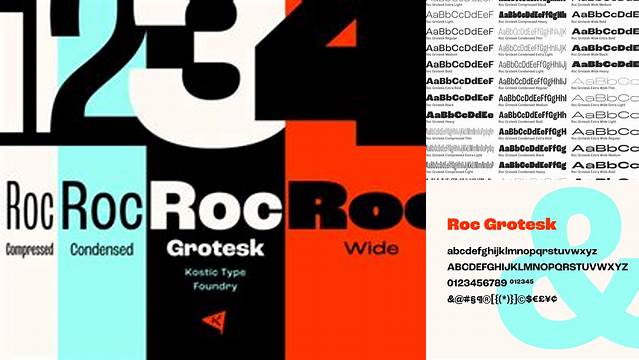
Hey design enthusiasts! Ever stumbled upon a font that just screams modern, industrial, and undeniably cool? That’s likely the vibe of ROC Grotesk Pressed. This font is a serious game-changer for anyone looking to inject a dose of contemporary grit into their projects. Whether you're crafting a brand identity, designing a poster, or just sprucing up your social media graphics, ROC Grotesk Pressed offers a unique aesthetic that’s hard to ignore.
Understanding the ROC Grotesk Pressed Font Family
The ROC Grotesk Pressed font family is a really fascinating collection, guys. It’s not just a single typeface; it’s a carefully curated set of weights and styles designed to work harmoniously together, offering a versatile toolkit for a wide range of design needs. At its core, ROC Grotesk Pressed is a sans-serif typeface, meaning it lacks those little decorative strokes (serifs) at the ends of letters. This gives it a clean, modern, and often minimalist appearance. What sets it apart, though, is its condensed nature. Think of it as a stretched-out, slender version of a standard grotesque font. This condensed form gives it a distinctive, commanding presence, making it perfect for headlines, titles, and any text where you want to make a bold statement without occupying too much horizontal space. The “Pressed” in its name hints at this characteristic, suggesting a font that’s been squeezed or compressed, giving it a unique visual weight and impact. The family typically includes various weights, from a light and airy feel to a bold and impactful presence, allowing designers to create sophisticated typographic hierarchies. Each weight has been meticulously crafted to maintain legibility even in its condensed form, which is a real feat. This means you can use the lighter weights for subheadings or body text if the context allows, and the bolder weights for powerful impact statements. The overall design philosophy behind ROC Grotesk Pressed is one of modern efficiency and visual strength, embodying a sort of industrial elegance that’s incredibly appealing in today’s design landscape. Its clean lines and geometric influences make it feel both timeless and cutting-edge, a tricky balance that this font family absolutely nails. So, when you’re looking at ROC Grotesk Pressed, you’re not just getting a font; you’re getting a carefully considered typographic system ready to elevate your designs.
Exploring the Design Characteristics of ROC Grotesk Pressed
Let's dive a bit deeper into what makes ROC Grotesk Pressed such a standout typeface, shall we? The condensed structure is definitely its most defining feature. This isn't just a subtle narrowing; it's a deliberate design choice that imbues the font with a sense of urgency, efficiency, and a strong verticality. Think of those iconic movie posters or album covers that use tall, impactful typography – that’s the kind of energy ROC Grotesk Pressed brings to the table. But it’s not just about being narrow; it’s about how that narrowness is executed. The designers have managed to maintain excellent legibility despite the condensed form. This means the letterforms are clear and distinct, preventing that frustrating blurriness that can plague some narrow fonts, especially at smaller sizes. You’ll notice a consistent stroke weight, which contributes to its visual stability and readability. Another key characteristic is its grotesque nature. Grotesque sans-serifs are known for their straightforward, unadorned appearance, often with a slightly geometric or even utilitarian feel. ROC Grotesk Pressed takes this foundation and refines it with a contemporary sensibility. The terminals (the ends of strokes) are typically clean and open, avoiding fussy details. The curves are generally smooth, but there's a subtle sharpness that adds to its modern edge. Pay attention to the x-height – the height of lowercase letters like 'x'. A generous x-height often contributes to better readability, and ROC Grotesk Pressed often strikes a good balance here, ensuring that even though it’s condensed, the text doesn't feel cramped or difficult to read. The apertures (the openings in letters like 'c', 'e', 's') are also well-defined, further enhancing clarity. It’s this thoughtful attention to detail, combined with its bold condensed silhouette, that makes ROC Grotesk Pressed so versatile and visually arresting. It’s a font that commands attention without shouting, offering a sophisticated yet powerful statement for any design project.
Why ROC Grotesk Pressed is a Designer's Favorite
So, why do so many designers gravitate towards ROC Grotesk Pressed? It really boils down to its unique blend of style and functionality, guys. In the fast-paced world of design, having a typeface that can do a lot of heavy lifting is crucial, and this font definitely fits the bill. First off, its condensed structure is a massive advantage. Need to fit a lot of text into a limited space, like on a compact banner or a mobile app interface? ROC Grotesk Pressed is your best friend. It allows for dense information without looking cluttered, maintaining a strong visual impact. This makes it incredibly useful for editorial design, packaging, and branding where space efficiency is key. Secondly, its modern and industrial aesthetic is highly sought after. It evokes a sense of precision, strength, and urban sophistication. This makes it perfect for brands that want to project an image of being cutting-edge, reliable, or having a robust, no-nonsense approach. Think tech companies, streetwear brands, architectural firms, or even high-end restaurants aiming for a chic, contemporary vibe. Furthermore, the versatility across weights is a huge plus. Having a range from light to bold means you can create a cohesive typographic system within a single project. You can use a bold weight for a main headline, a medium weight for subheadings, and perhaps even a lighter weight for captions, all while maintaining that distinctive ROC Grotesk Pressed character. This consistency is gold for brand recognition and visual harmony. It’s a font that doesn’t just look good; it performs well, offering excellent legibility and adaptability across various media, from print to digital screens. It’s the kind of font that makes a project feel instantly more professional and polished, which is exactly what every designer strives for. Plus, its distinctive look means your work will stand out from the crowd.
The Versatility of ROC Grotesk Pressed in Branding
When we talk about branding, guys, consistency and impact are everything. That’s precisely where ROC Grotesk Pressed shines, making it a go-to choice for many companies looking to establish a strong visual identity. Its condensed sans-serif nature lends itself incredibly well to the demands of modern branding. Firstly, the condensed format is brilliant for logo design. Many logos need to be legible at very small sizes (think app icons or favicons) and also impactful when scaled up for signage or billboards. ROC Grotesk Pressed’s verticality allows it to be memorable and distinctive even when horizontally constrained. It can create a compact, powerful logotype that feels contemporary and sophisticated. Secondly, in brand collateral like business cards, letterheads, and brochures, the font’s efficiency means you can convey information clearly without making the design feel crowded. Imagine a sleek business card – ROC Grotesk Pressed can deliver a strong company name or tagline in a minimal amount of space, maintaining an elegant and uncluttered look. The various weights available within the family allow for a complete typographic hierarchy for brand communications. You can use a bold weight for the main brand name or headline, a regular weight for body copy in marketing materials, and perhaps a lighter weight for secondary information or footnotes. This creates a professional and unified brand voice across all touchpoints. The modern, industrial aesthetic also appeals to a wide range of industries that want to project qualities like innovation, reliability, and strength. Whether it’s a tech startup, a craft brewery, or an automotive brand, ROC Grotesk Pressed can help convey a sense of forward-thinking dynamism and grounded robustness. Its distinctive character ensures that the brand doesn't just blend in; it makes a statement. It’s a font that can easily adapt to different brand personalities, from minimalist chic to bold industrial, proving its immense value in the competitive world of brand building. The ability to maintain legibility across different applications, from web headers to print advertisements, further cements its status as a branding powerhouse.
ROC Grotesk Pressed for Eye-Catching Headlines
Headlines, guys, are often the first impression your content makes. They need to grab attention, convey key information instantly, and set the tone for what’s to come. This is where ROC Grotesk Pressed absolutely KILLS IT. Its condensed, bold form is inherently attention-grabbing. When you use a bold weight of ROC Grotesk Pressed for a headline, it possesses a strong vertical presence that naturally draws the eye. It cuts through the visual noise of a page or screen, demanding to be read. This makes it exceptionally effective for everything from magazine covers and newspaper front pages to website banners and social media posts. The unique character of the condensed sans-serif style also gives headlines a sense of sophistication and modernity. It feels intentional and impactful, signaling that the content within is equally compelling. Unlike overly decorative or complex fonts that can sometimes hinder readability in headlines, ROC Grotesk Pressed maintains clarity. The clean letterforms and well-defined strokes ensure that the message gets across instantly, even at large display sizes. This is crucial; a headline that looks cool but is hard to read defeats its own purpose. Furthermore, the versatility within the ROC Grotesk Pressed family means you can fine-tune the impact of your headlines. A heavier weight might be used for a main title, while a slightly lighter, but still condensed, weight could serve as a strong sub-headline, creating a clear typographic hierarchy that guides the reader. It’s this combination of visual punch, inherent legibility, and stylistic refinement that makes ROC Grotesk Pressed such a powerful tool for creating unforgettable headlines. It’s the kind of font that makes people stop scrolling or look twice, ensuring your message gets the attention it deserves. It’s designed to make a statement, and it does so with exceptional style and clarity, making your design work truly pop.